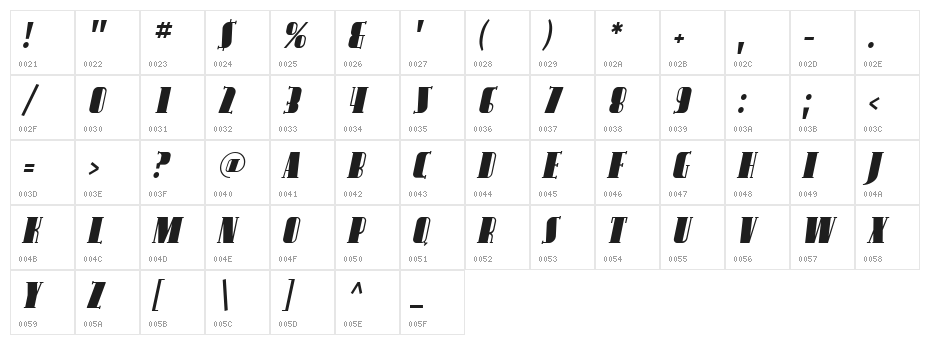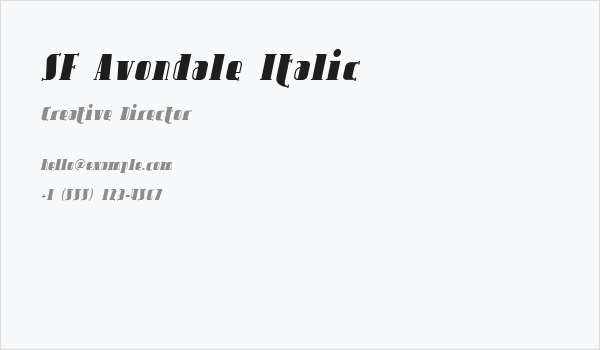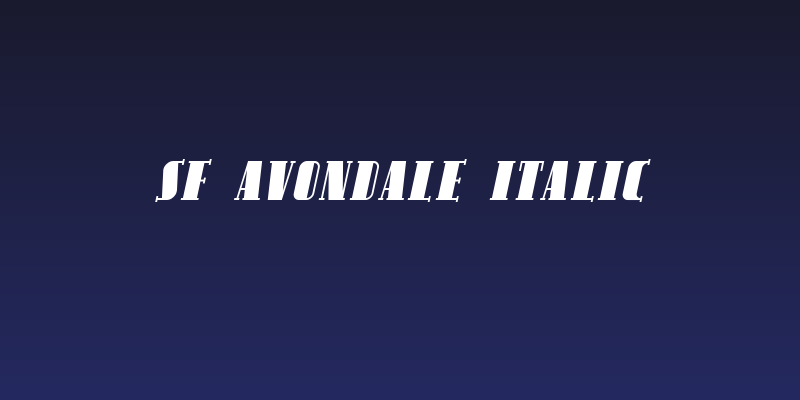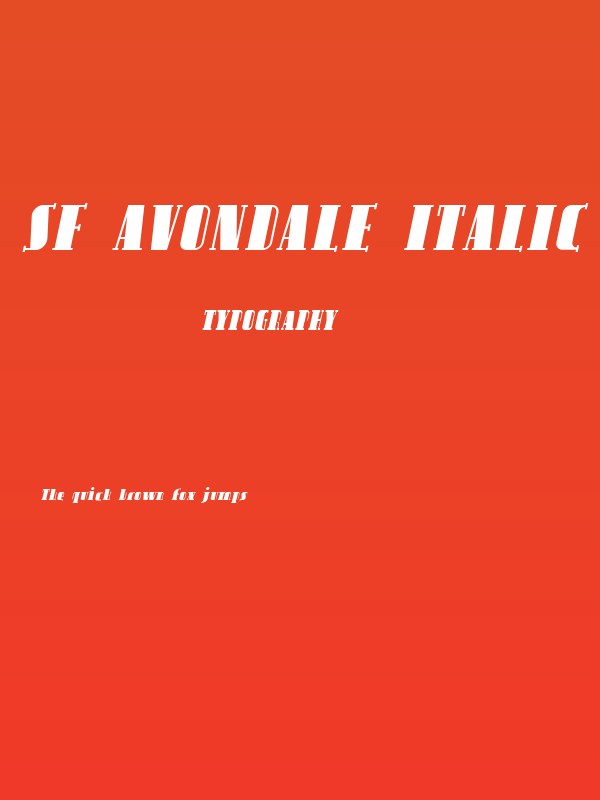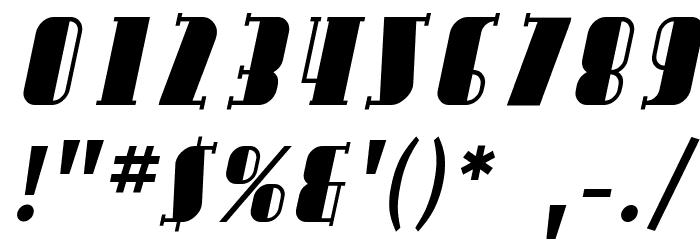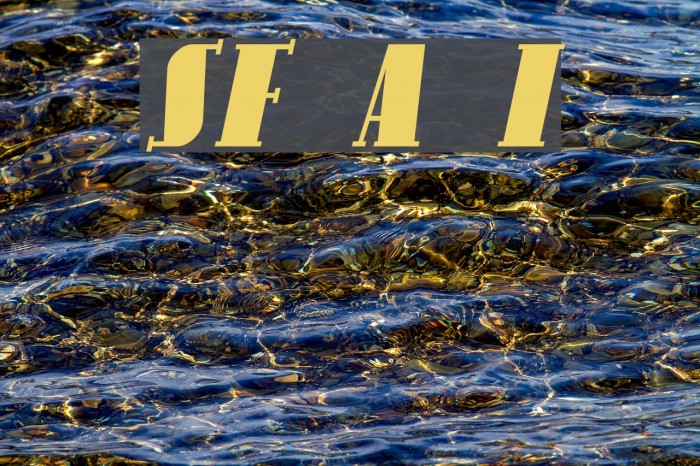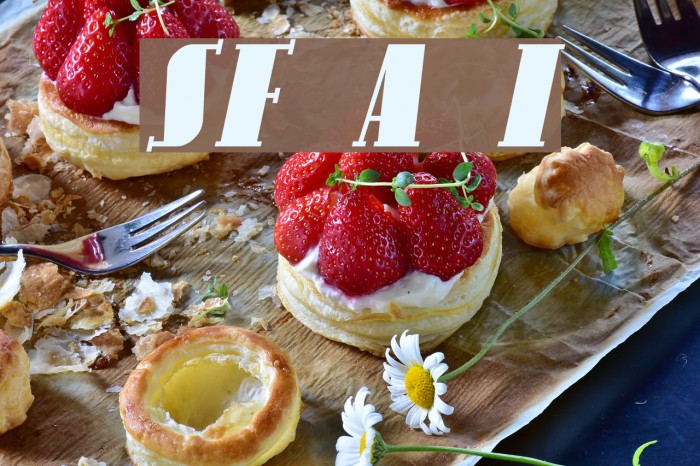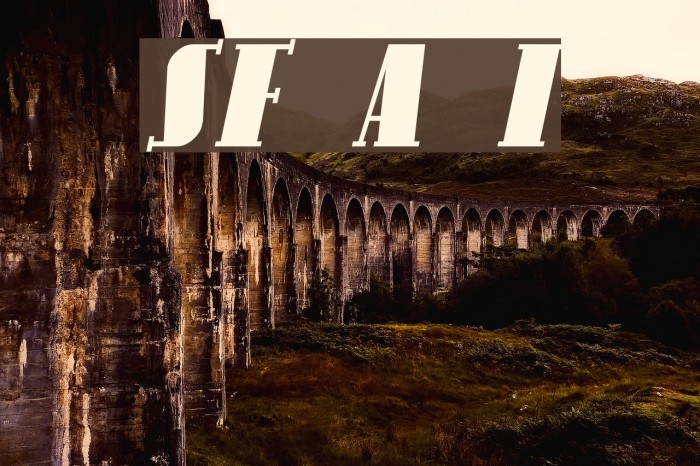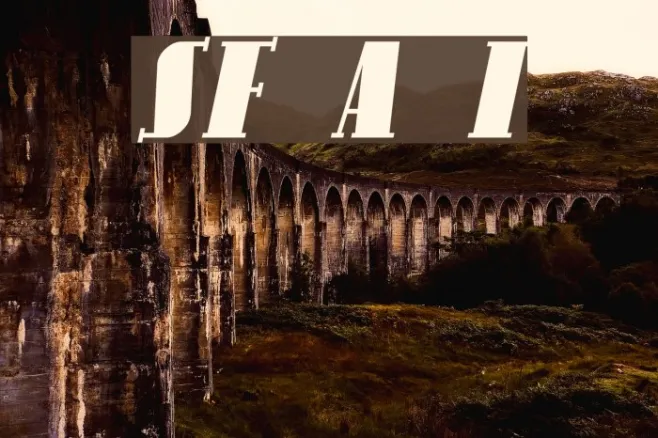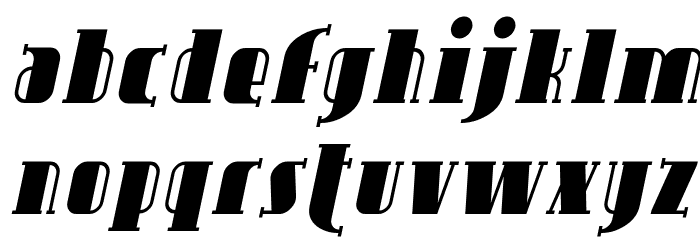
SF Avondale Italic Font
SF Avondale Italic Description
This font features a bold and dynamic italic style, characterized by its strong diagonal emphasis and sharp, angular serifs. The uppercase letters exhibit a commanding presence with their elongated forms and pronounced slant, while the lowercase letters maintain a cohesive flow, enhancing readability. The numerals are distinct and bold, ensuring clarity in numerical data presentation. Special characters are designed to complement the overall aesthetic, maintaining the font's bold and italicized nature. This typeface is ideal for making a strong visual impact, combining traditional serif elements with a modern twist.
| Proposed Projects | Ideal for branding, headlines, posters, and editorial design where a bold statement is needed. |